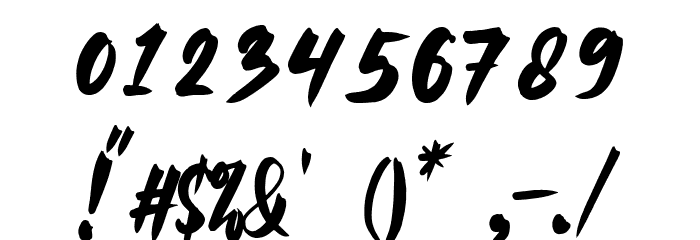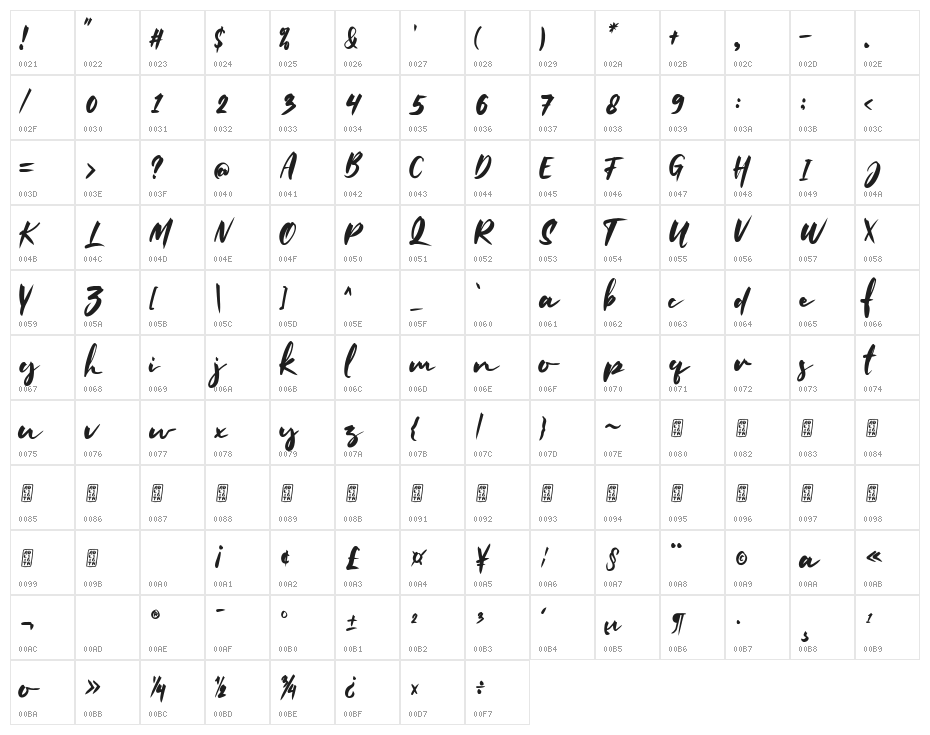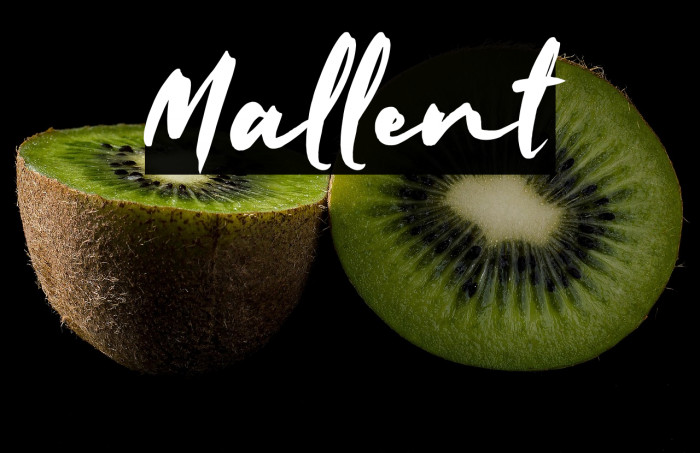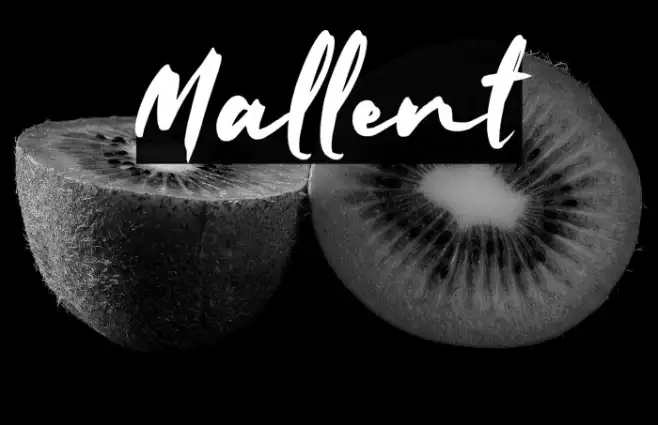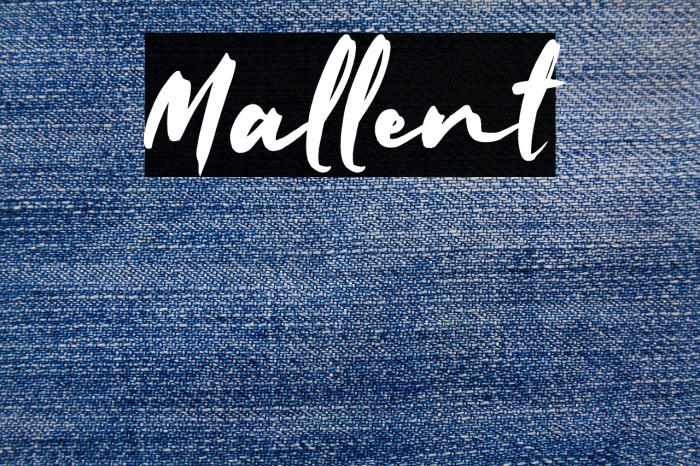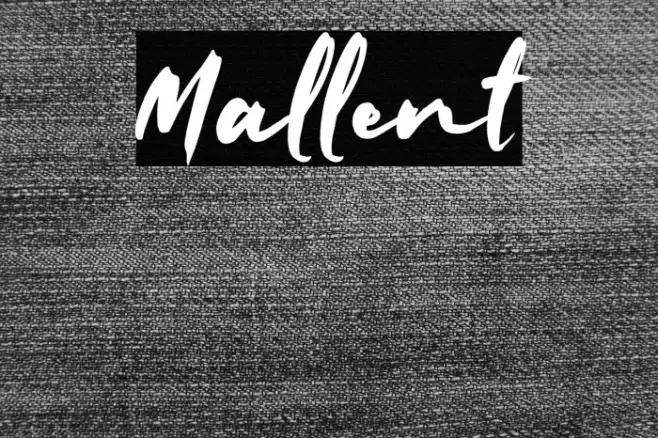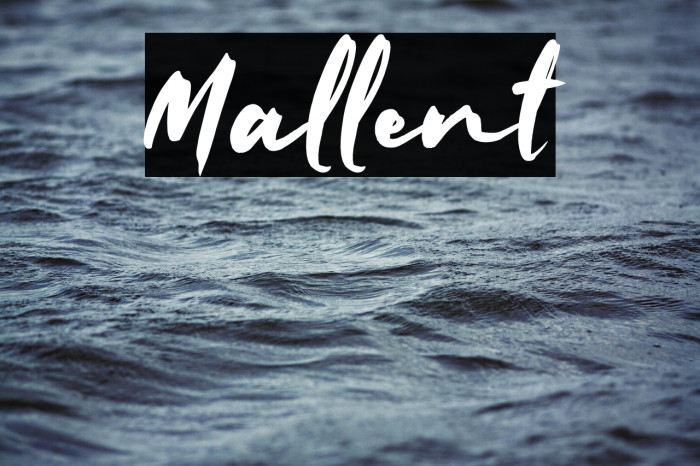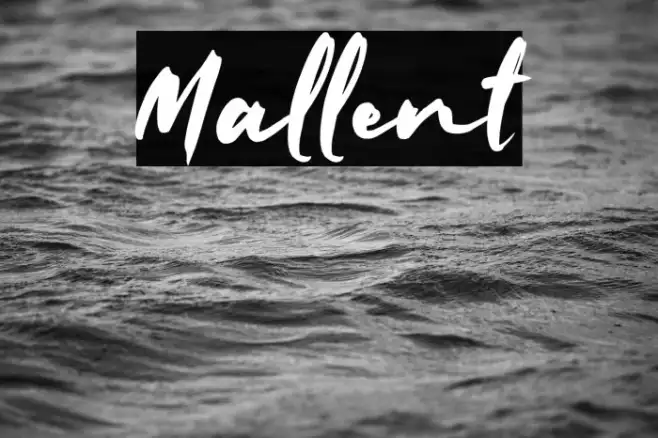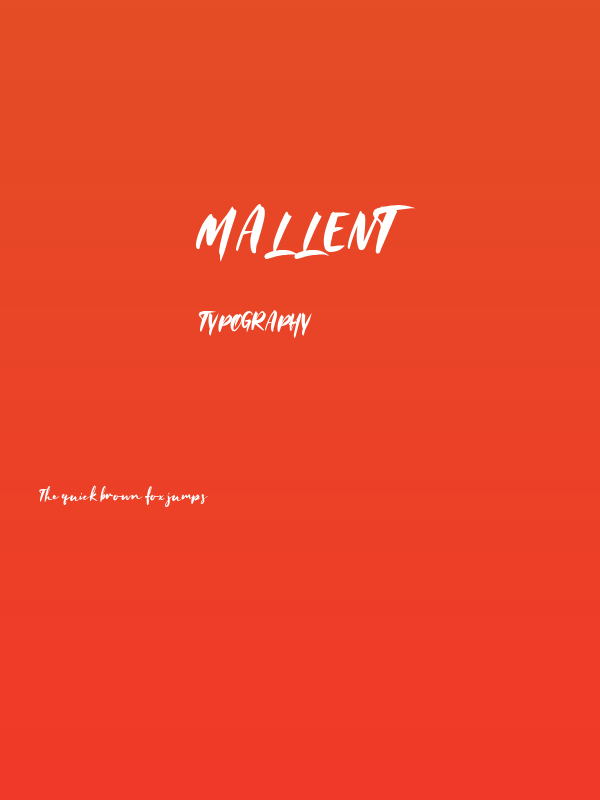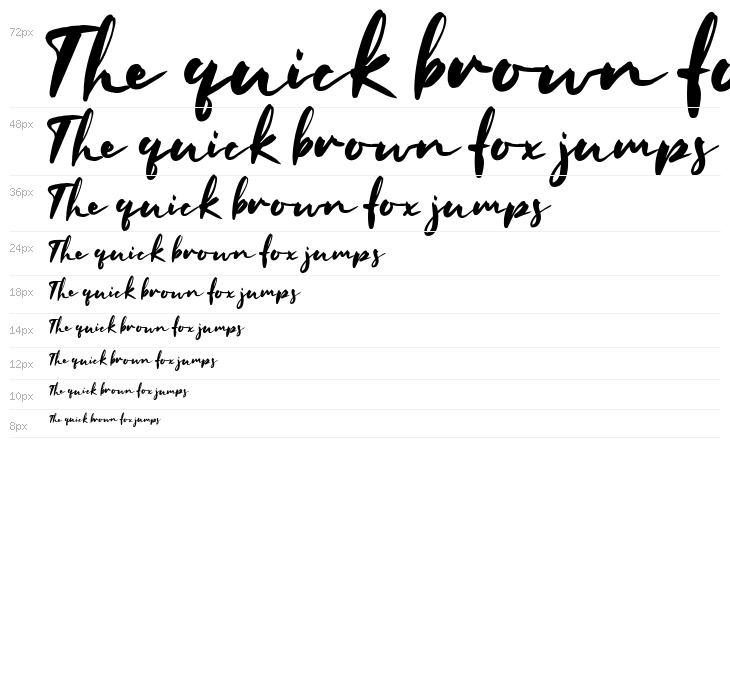
Mallent Font
Mallent Description
This font exhibits a dynamic and expressive style, characterized by its bold, brush-like strokes that convey a sense of movement and energy. The uppercase letters are particularly striking, with a slightly slanted orientation and varying stroke widths that add to the font's lively appearance. The lowercase letters maintain this energetic feel, with fluid connections and a casual, handwritten quality. The numerals and special characters are equally bold, ensuring consistency across all elements. This font's high contrast in stroke thickness enhances its dramatic and eye-catching nature, making it ideal for impactful designs.
Use CaseLogos, Headlines, Posters
Proposed ProjectsPerfect for branding projects, posters, invitations, and any design requiring a bold, artistic touch.